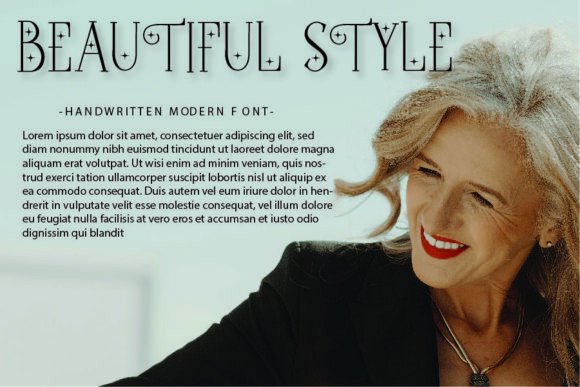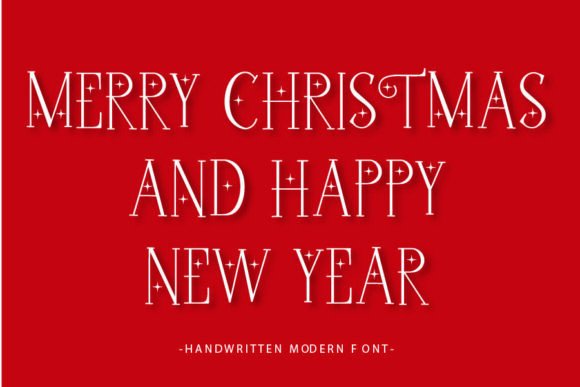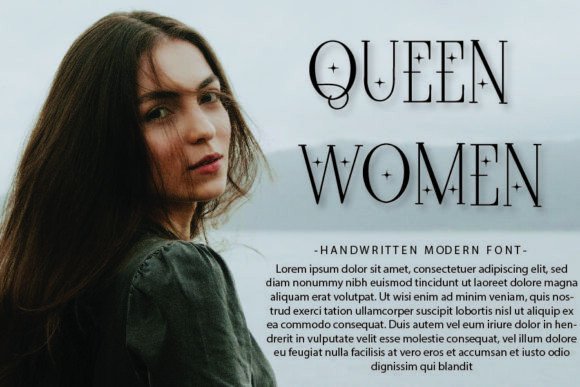
Introduction to Santa Desember Font
Introducing the Santa Desember font – the epitome of cheerful holiday joy and spirited youthfulness.
This whimsical typeface dances across your Christmas-oriented projects, adding noticeable sparks of festive fun and playful charm Its quirkiness doesn’t just entertain; it brings your designs to life, making every word an embodiment of holiday merriment.
Key Features of Santa Desember Font